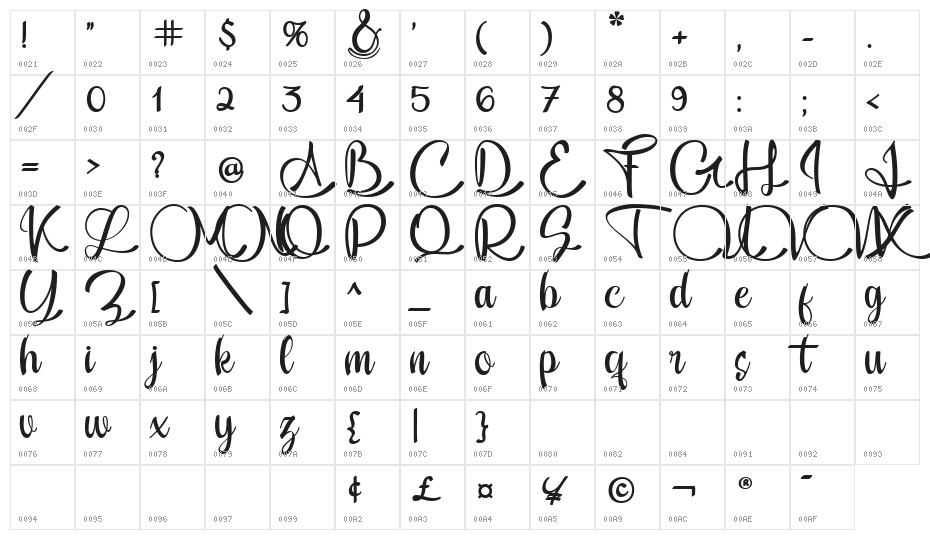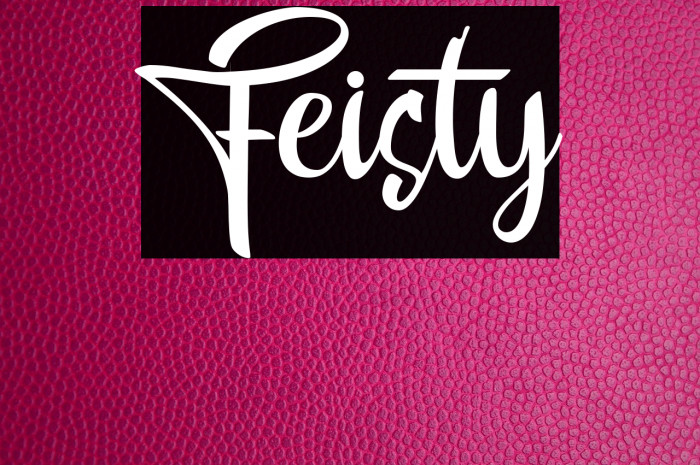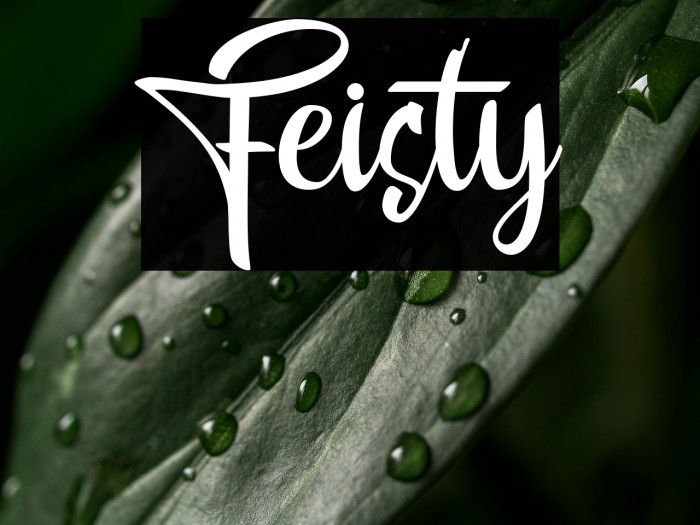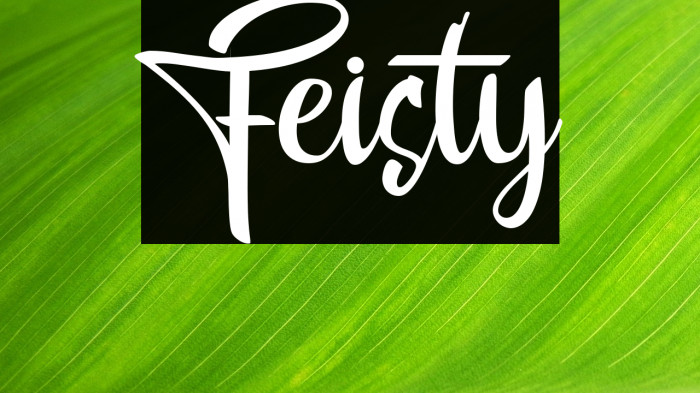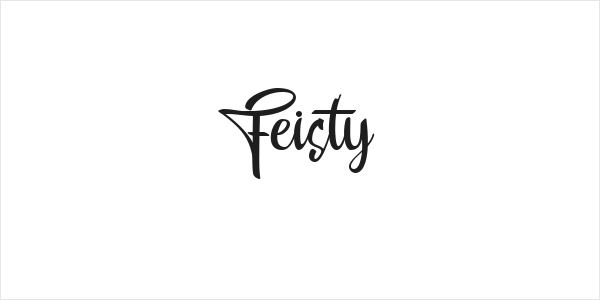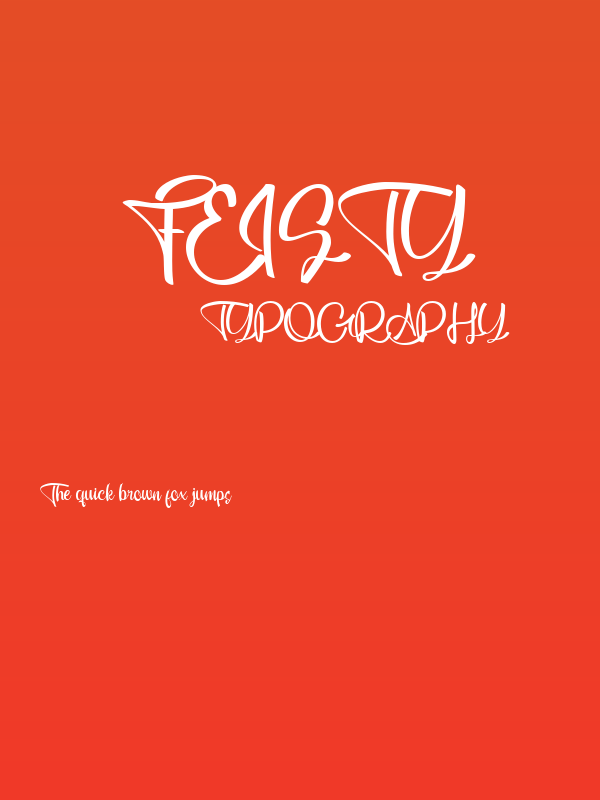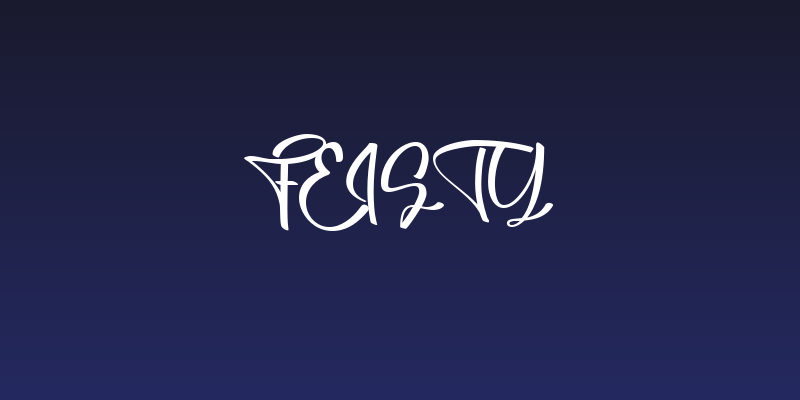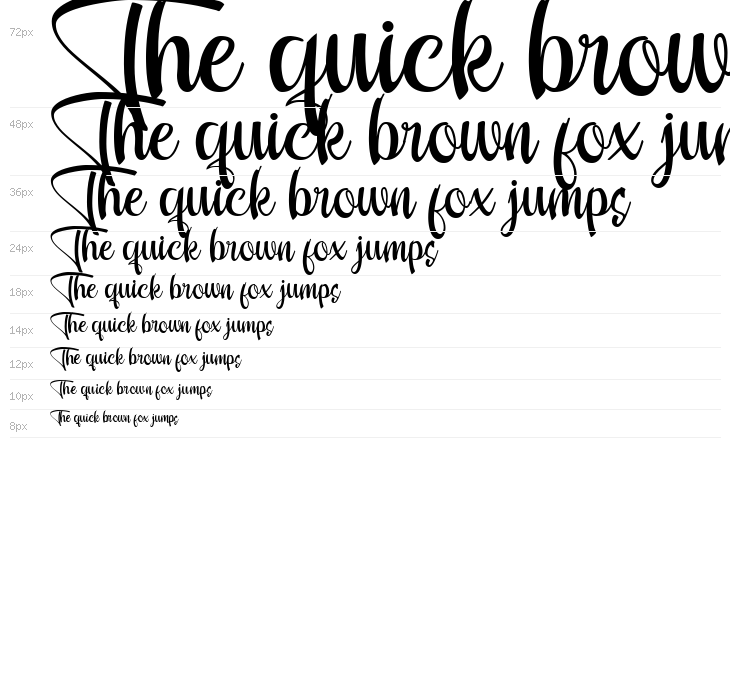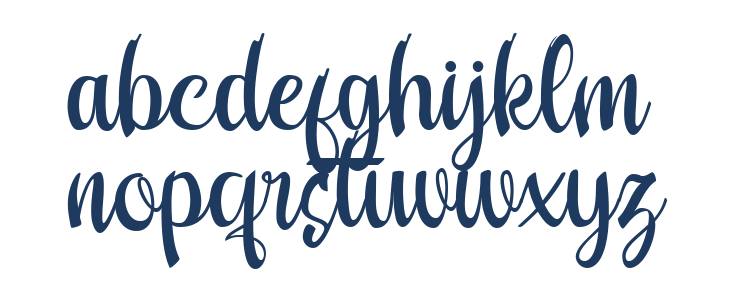
Feisty Font
Feisty Description
This font features a lively and energetic script style with a playful and dynamic flow. The uppercase letters are characterized by their intricate loops and swirls, giving them a whimsical and artistic appearance. The lowercase letters maintain a consistent rhythm with smooth, flowing curves that enhance readability while retaining a sense of elegance. The numerals are bold and slightly rounded, complementing the overall style with a touch of modernity. Special characters are designed with the same playful flair, ensuring a cohesive look across all elements. This font's unique personality makes it suitable for creative and expressive design projects.
| Use Case | Logos, Invitations, Greeting cards |
| Proposed Projects | Ideal for invitations, greeting cards, branding, and creative posters. |